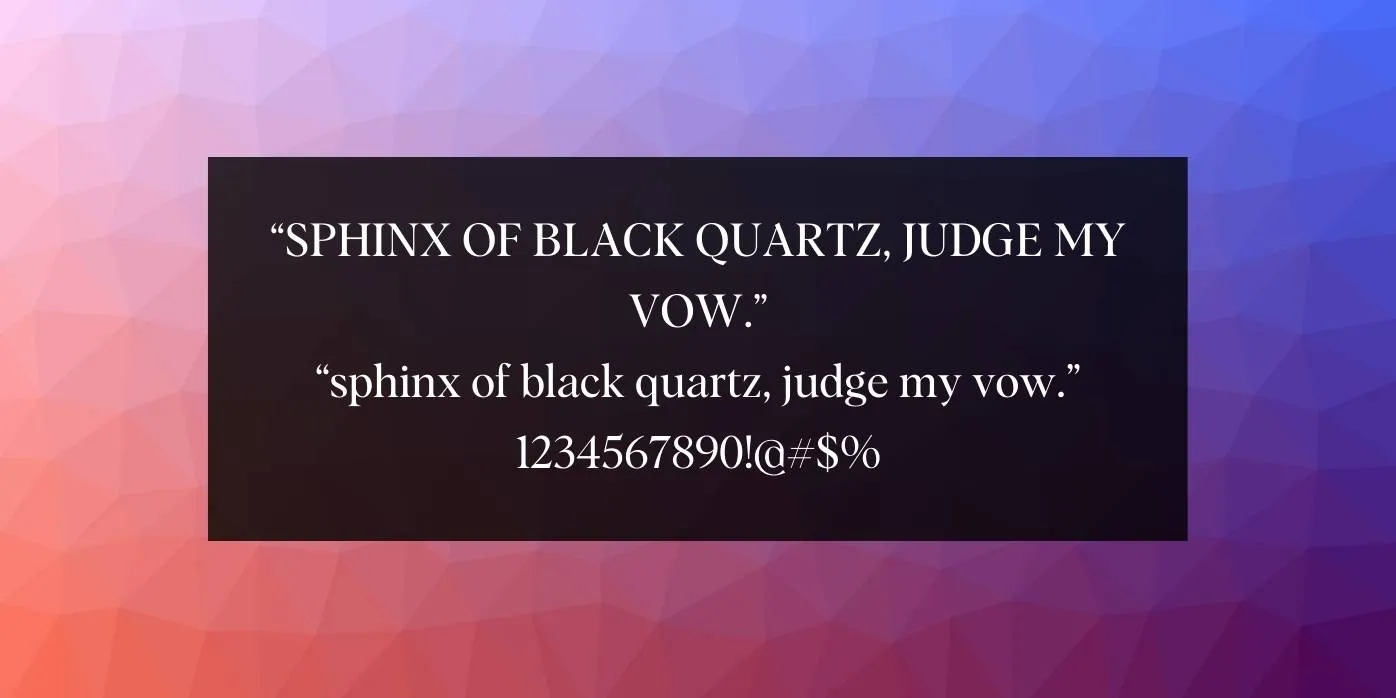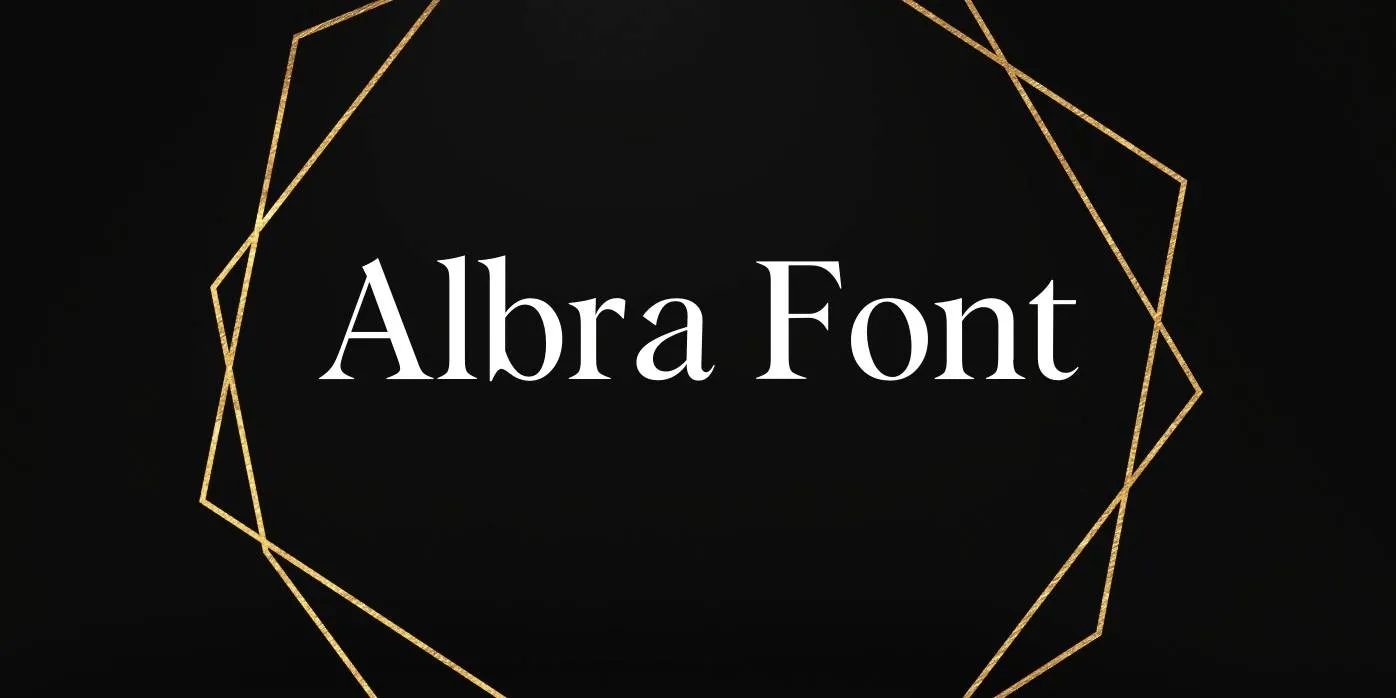
Albra Font
Albra Font is a serif typeface that was developed by Adriana Ferreira in 2014. This font was inspired by the work of French type designer Claude Garamond and is named after the city of Alba, Italy. This family is best specified for the CSS, and HTML. This tremendous font is available in four weights Regular, Bold, Italic, and Bold Italic, and includes support for Latin, Cyrillic, and Greek character sets.
The italic style adds a touch of elegance to any design, and the bold italic style is perfect for making statements or calling attention.